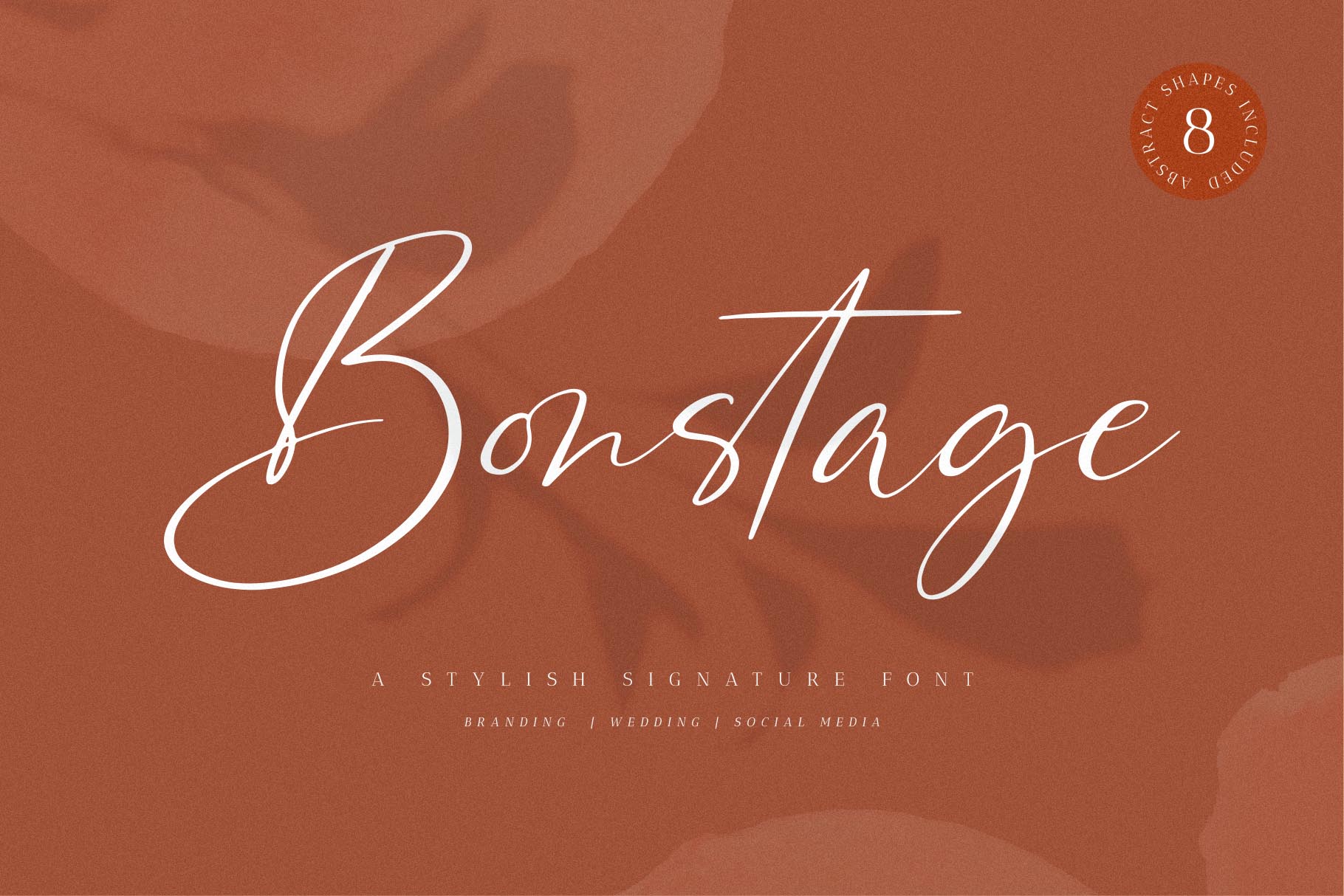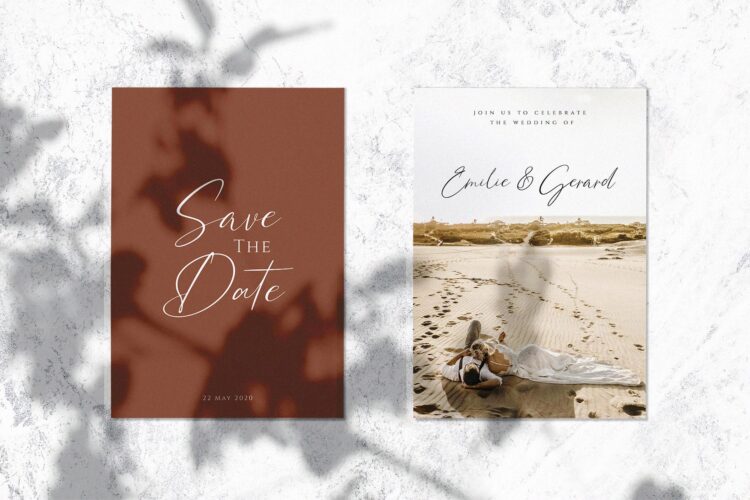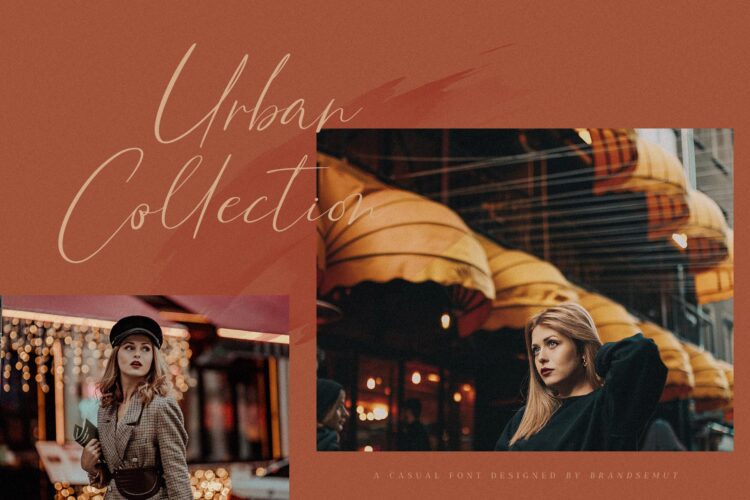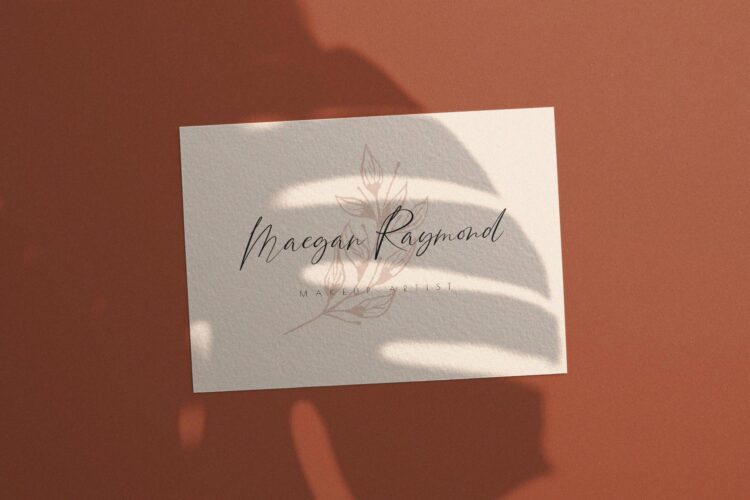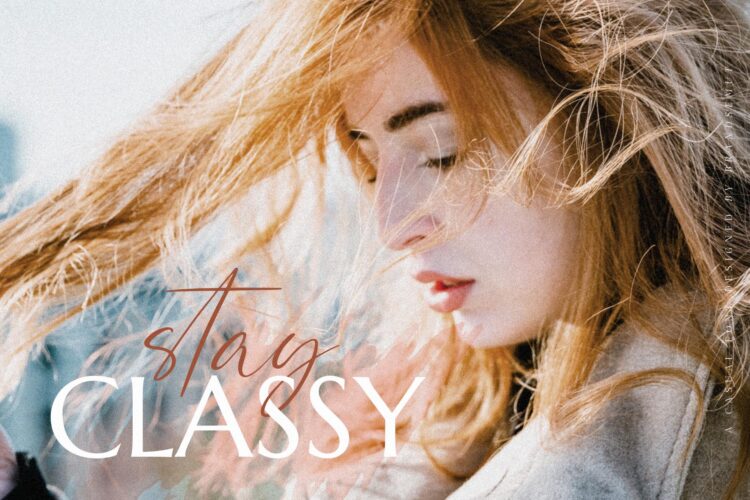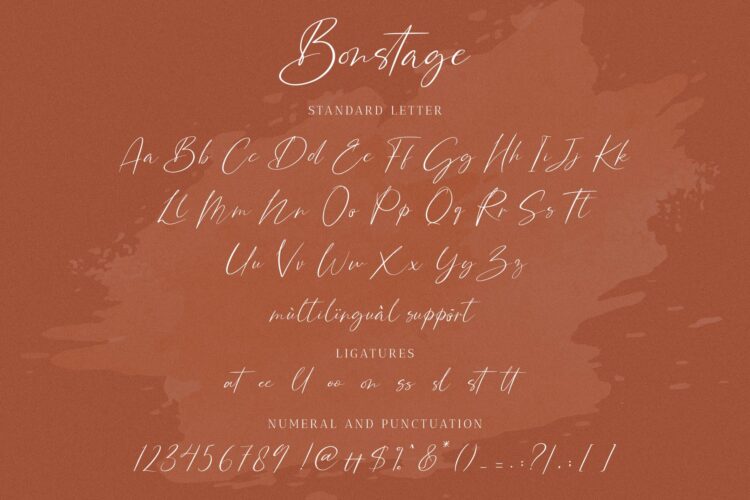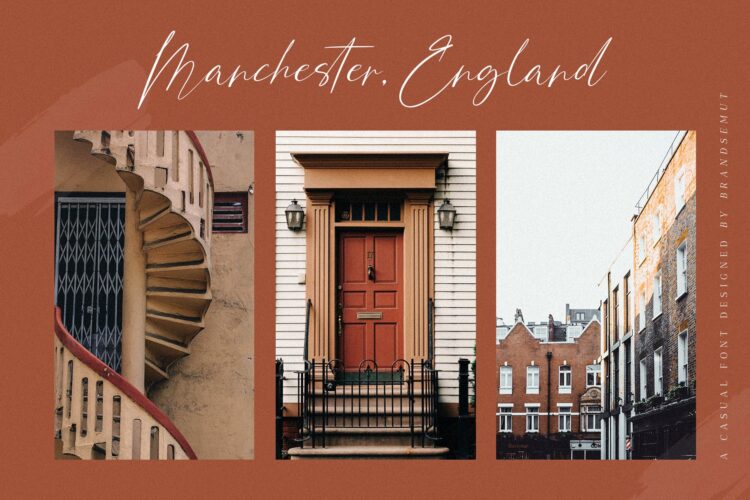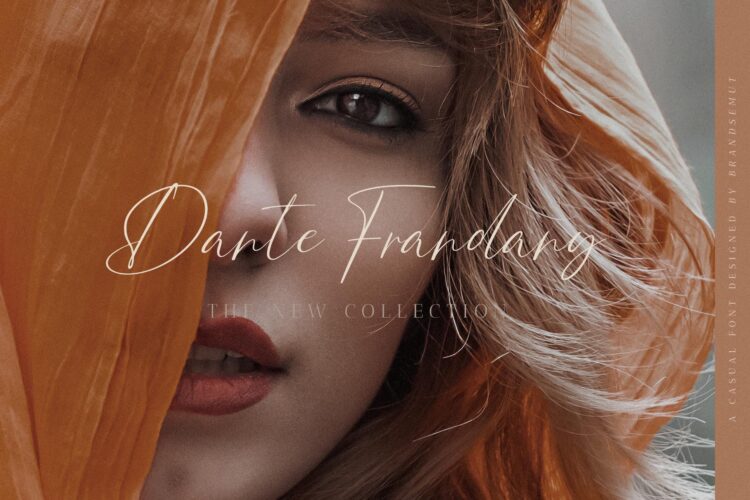
Introducing Bonstage || Script Font with Abstract Shapes Bonus!!!
Please click and scroll through all the previews to see everything that is included. This is a Casual, Modern, Stylish, Classy script font, And collection of professional hand-drawn quality illustrations Bonus, and I hope you love every moment of using them!
Bonstage was built with OpenType features and includes ligatures, numbers, punctuation, and it also multilingual support.
Bonstage script fonts combined with Abstract Shapes the perfect quality and graphic of elements let you create wedding invitations, wedding stationery, DIY, wrappers, fashion textile patterns, textures, posters, wedding decorations, gifts, quotes, blogs, wallpapers, stickers, etc.
Bonstage Font + Abstract Shapes